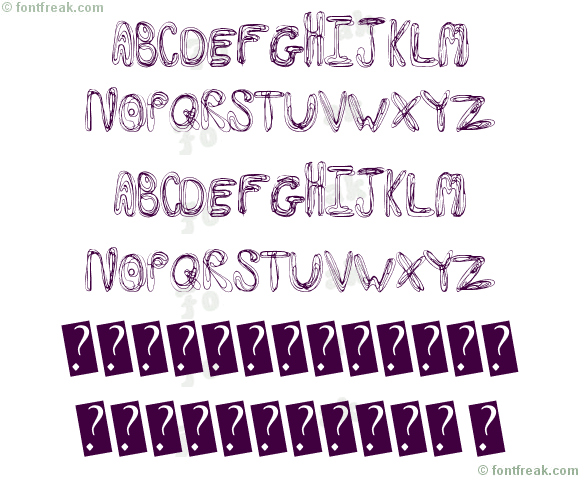
SwirlInsertion
SwirlInsertion by XEROGRAPHER FONTS is a unique display font that captivates with its whimsical, playful aesthetic. This decorative typeface features a curvy, swirling design that adds a touch of creativity to any project. The strokes are varied, offering a delightful contrast between thick and thin elements, which enhances its visual appeal. The spacing is well-balanced, ensuring that each letter stands out while maintaining a cohesive flow. The decorative elements are reminiscent of hand-drawn styles, contributing to a friendly, approachable look.
This font is ideal for a variety of uses, particularly in areas where a touch of personality is desired. Wedding invitations benefit from its romantic flair, making the special occasion feel even more enchanting. It also shines on movie posters, where its unique style can catch the eye of potential viewers. Restaurant menus can be elevated with SwirlInsertion, attracting patrons with a fun and inviting atmosphere. Additionally, it can be effectively utilized in social media graphics, allowing content creators to engage their audience with visually striking text.
Targeting graphic designers, small business owners, and content creators, SwirlInsertion offers versatility for anyone looking to make a memorable impression. The font's free download option makes it accessible for projects of all sizes, empowering users to experiment with its playful design without financial constraints.
What sets SwirlInsertion apart is its ability to blend artistic flair with practicality. It infuses any design with a sense of joy and creativity, making it a standout choice for projects that seek to convey a lively and engaging tone. Whether you’re crafting an invitation or a promotional piece, this font ensures that your message is not just read, but felt.